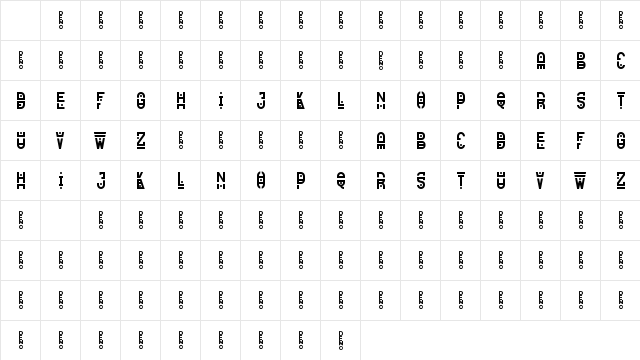
Complete Zilap Evolution Regular glyph index. Displaying only characters natively supported by Zilap Evolution Regular font.
Zilap Evolution is a composed and adaptable typeface that performs quietly and consistently across a wide range of design contexts.